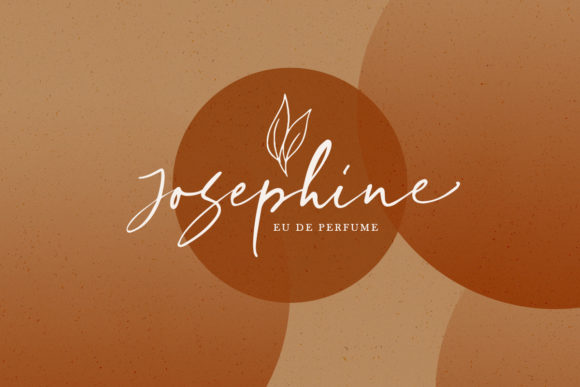
Girly Moods Font
About Girly Moods Font
Girly Moods is a gorgeous and light script that radiates authenticity. Use it to take any design project to the next level.